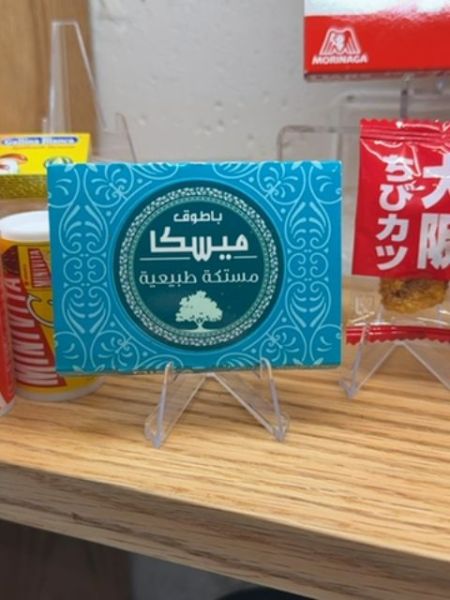
ميسكا
A natural chewable resin often used for its medicinal properties.
The typography features bold Arabic script, enhancing readability while imparting an authentic cultural touch. The script is set within a circular design, aligning with the organic theme of the packaging.
The product is packaged in a small, vibrant turquoise box featuring intricate decorative patterns. A central circular emblem with a tree motif adds to the natural theme of the product.
- Often used in traditional medicine.
- Commonly enjoyed for its refreshing taste.
- Known for its antioxidant properties.